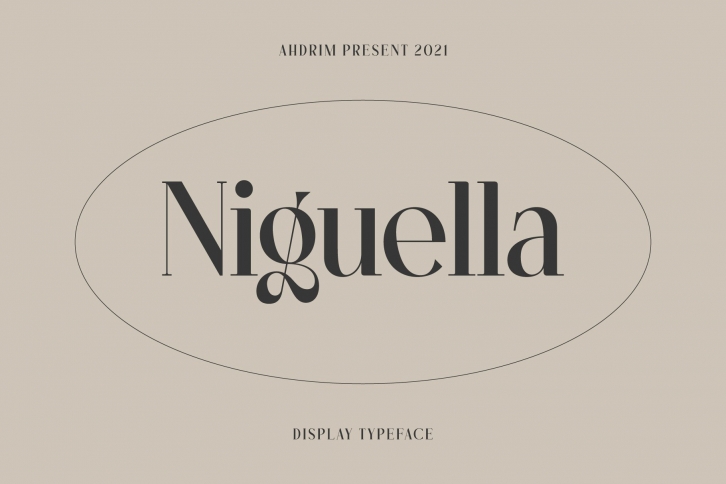
Niguella is a gorgeous font that was realeased on March 26, 2021. The font can be used in many style contexts and design environments. Perfect for invitations, magazines, websites, logos, and more! It was designed by Ahdrim Studio and the file size is 13.89 MB. Thanks for checking out this font!